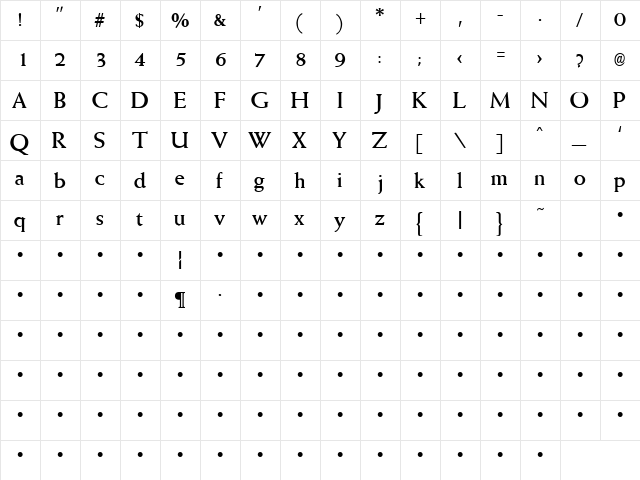
QTWeise Bold
Design Context for QTWeise Typeface
QTWeise is a composed and adaptable typeface that performs quietly and consistently across a wide range of design contexts. Its bold stroke weight gives it real presence on the page.